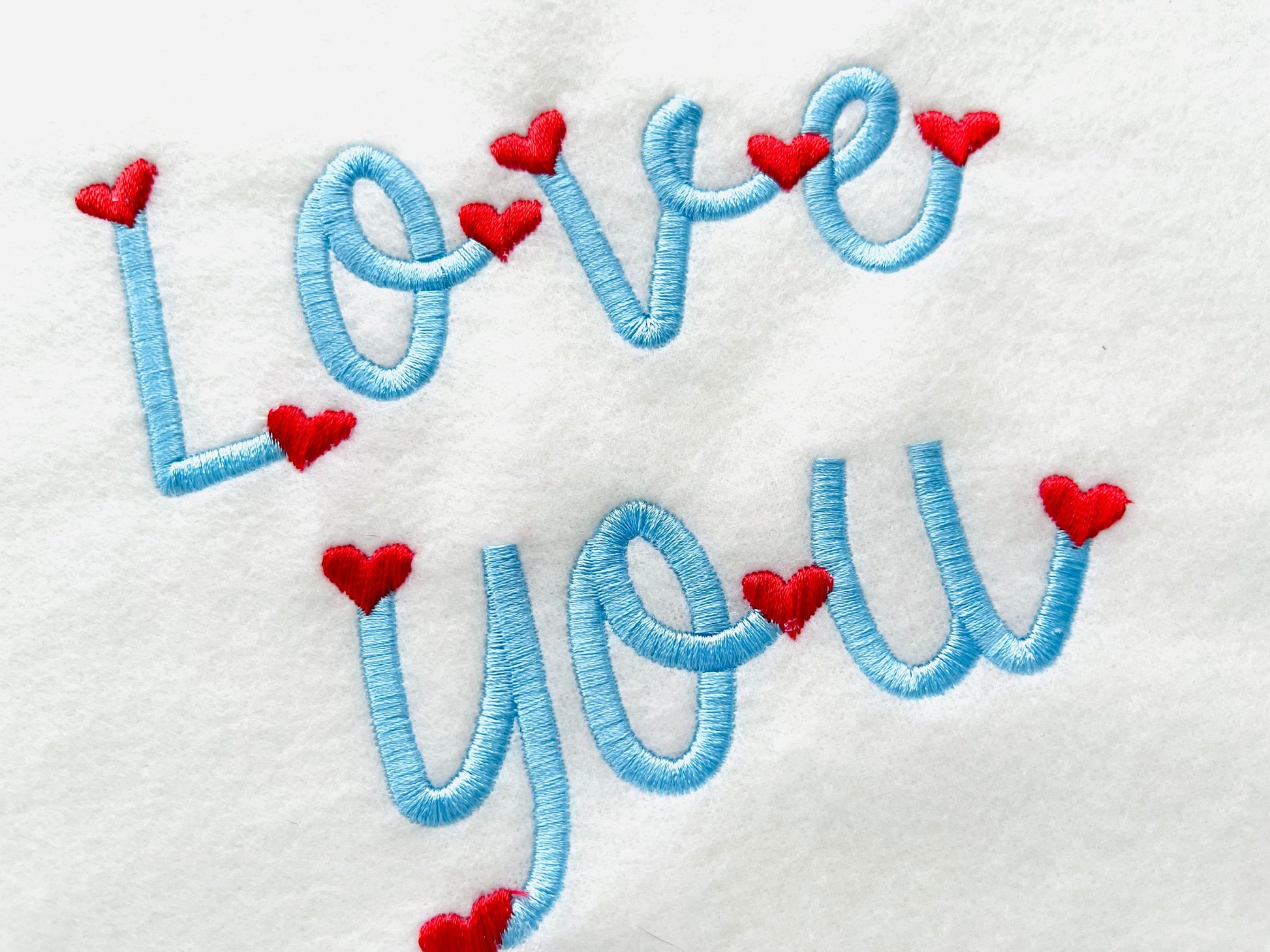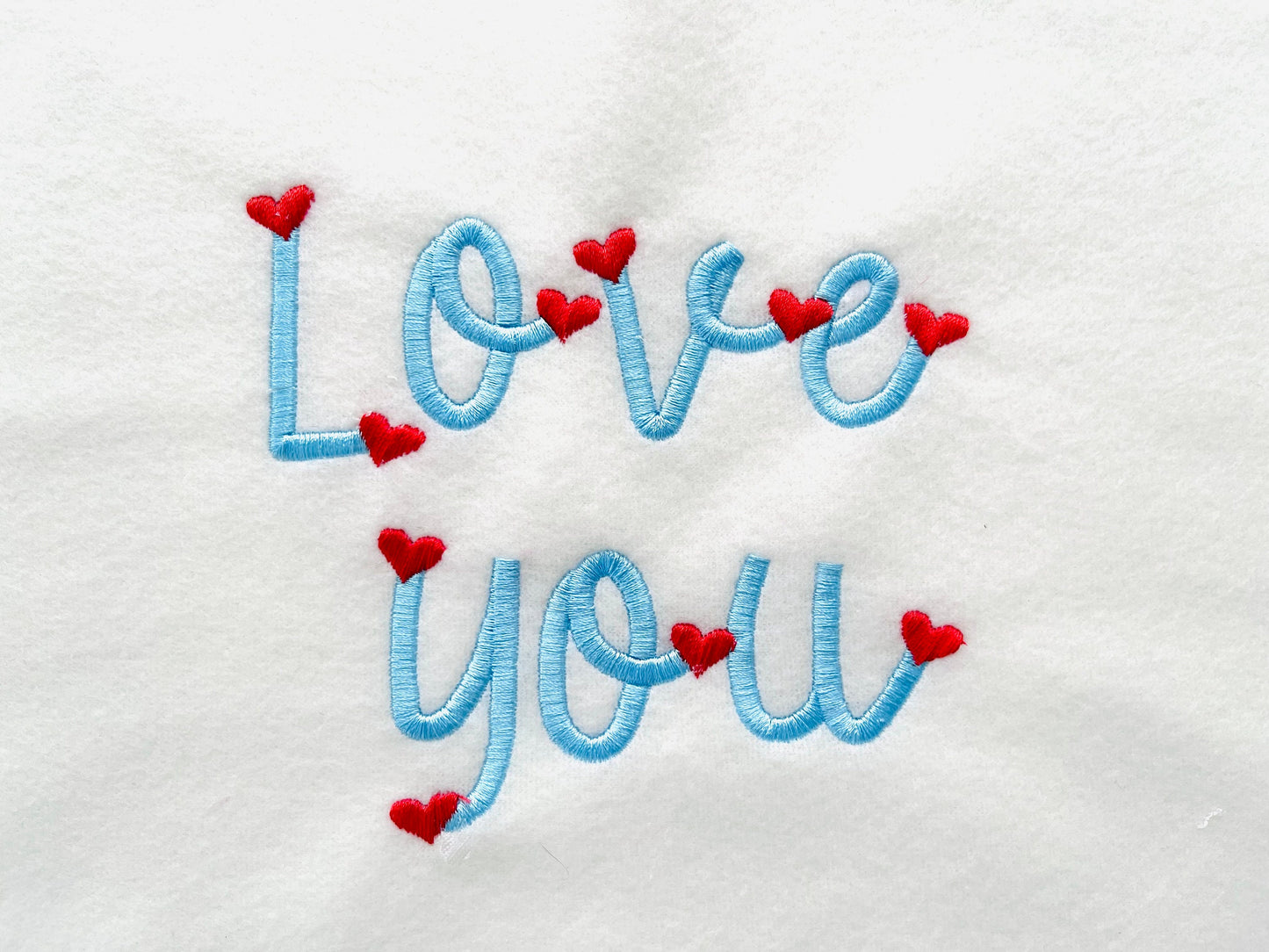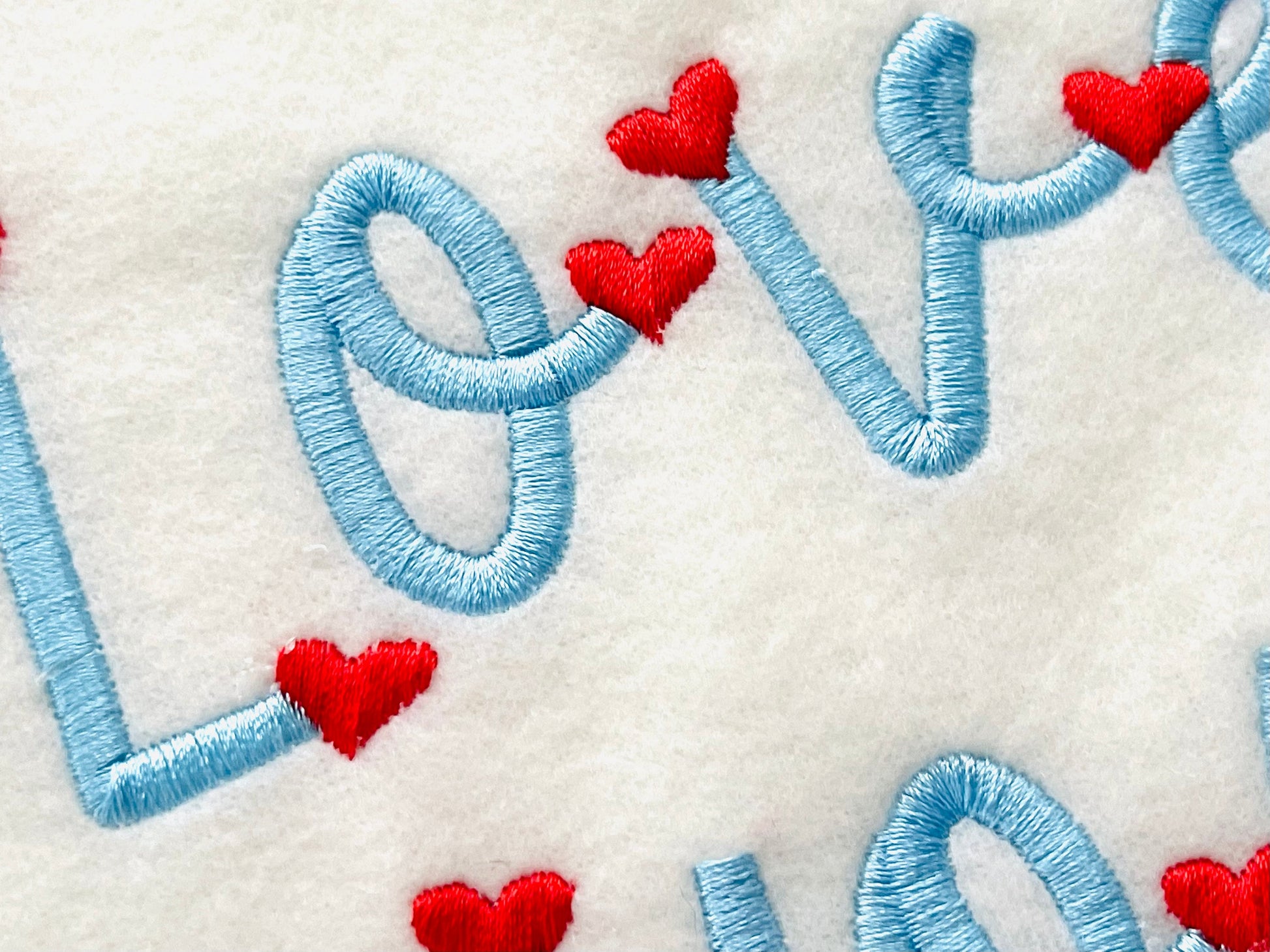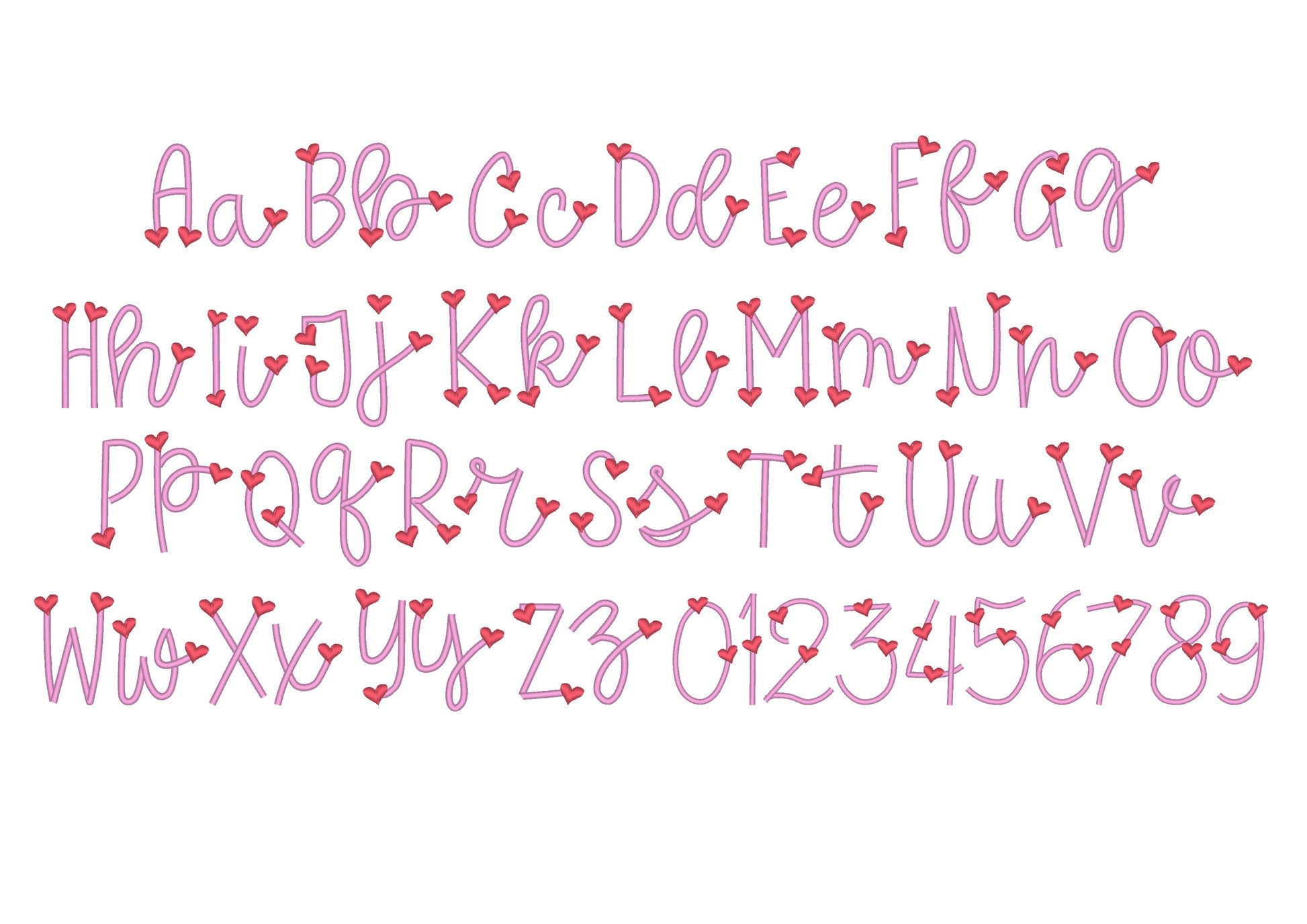
This stitched out beautifully. So pleased!
Love it Perfect for a reading pillow.
Stitched out great! Super cute!
This is a perfect heart font. Just enough heart.
Great font. Very cute.
Very cute font, perfect for Valentine's Day
I love this font! The only funky thing about it is you can’t really connect the letters like you do with most script fonts bc of the placement of the hearts, but it’s still really cute
Did not stitch out well. Guidelines were showing even after stitchout and density was lacking. I messaged multiple times for support with no response. Disappointed.
This stitched out perfectly as shown. When searching for a BX font that will work with my 4x4 machine, I often get sellers that list them at compatible with 4x4 but in reality the smallest size is exactly that which makes them unusable. HOWEVER, this font was perfect because it comes with smaller sizes to where I can actually type out more than one letter! Love love love!
I just started embroidering and love this font!
Stitched out nicely when I used it